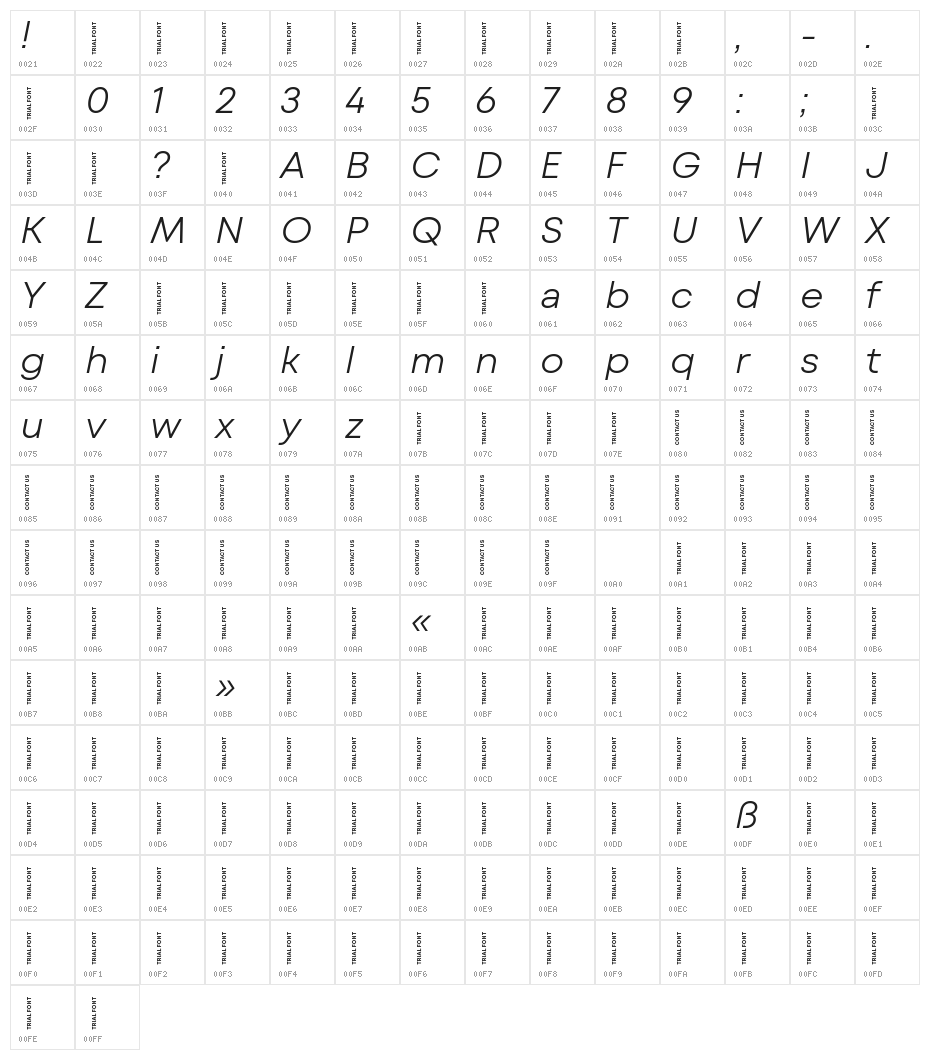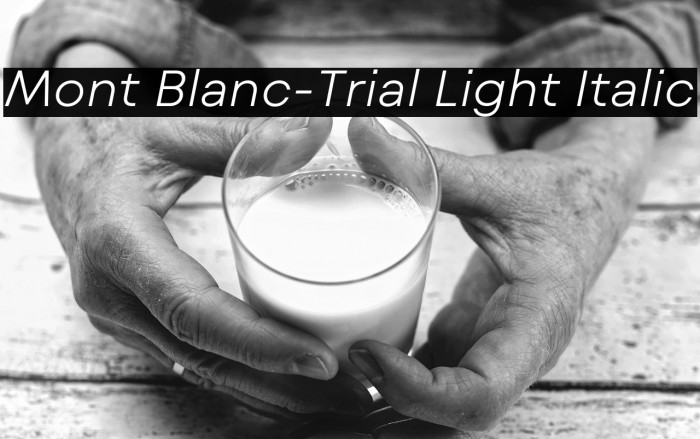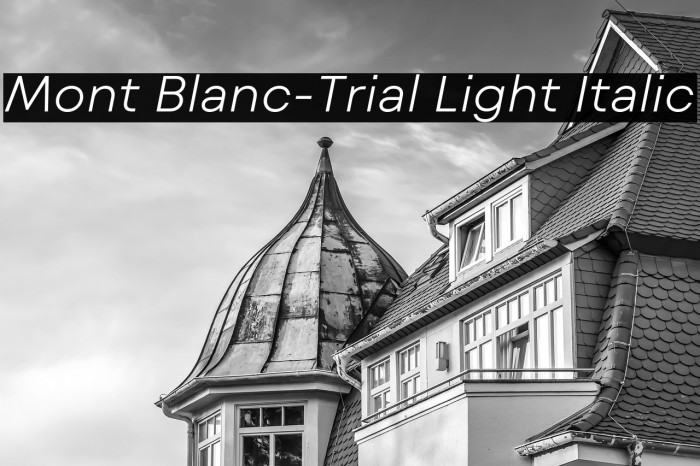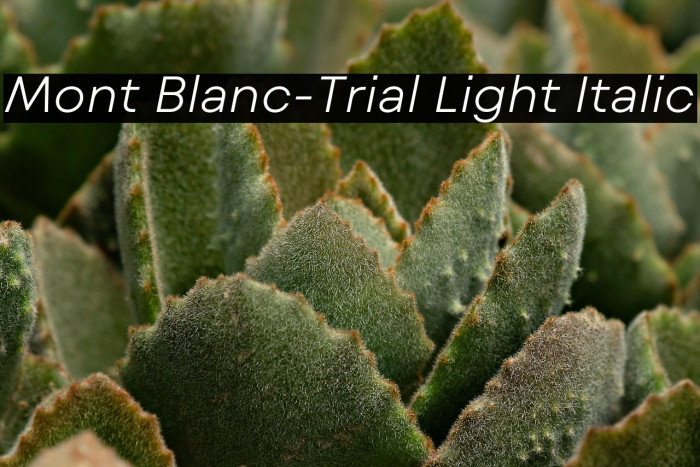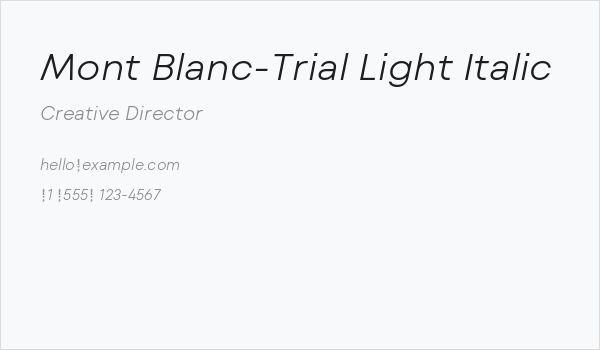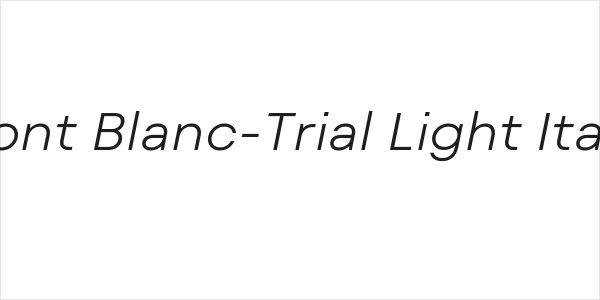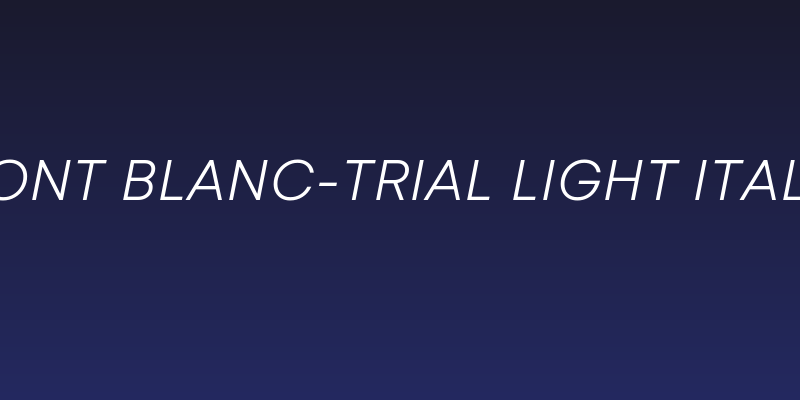
Mont Blanc-Trial Light Italic Font
Mont Blanc-Trial Light Italic Description
This font features a sleek and elegant design with a light weight and italic style. The characters are slightly slanted, giving a sense of motion and sophistication. The strokes are consistent and smooth, with a modern sans-serif appearance. The uppercase letters are tall and commanding, while the lowercase letters maintain a balanced and harmonious look. The numerals are clear and easy to read, making them suitable for various applications. Special characters are designed with the same attention to detail, ensuring uniformity across the typeface.
| Proposed Projects | Ideal for branding, editorial design, and digital interfaces where a modern and sophisticated look is desired. |